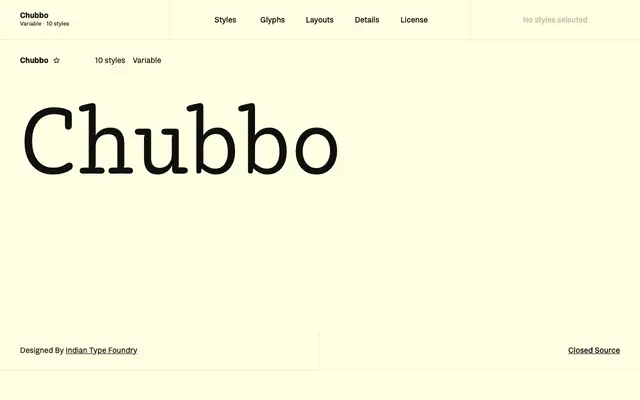
Chubbo
A rounded slab serif from Indian Type Foundry with five weights and genuinely redrawn cursive italics, available as static and variable fonts.
Chubbo's slab serifs end in rounded terminals across all five weights, lending the family a soft and approachable quality at poster and headline sizes. Its italics are a distinct contribution from type designer Rafał Buchner: rather than sloped versions of the upright forms, they are redrawn in a more cursive style that retains the feel of a pen stroke. OpenType alternates provide single-storey forms for the 'g' and 'y', and open-loop descender variants for the italic cuts.
The foundry classifies Chubbo as Display; it is a slab serif with rounded terminals throughout, giving it a soft, expressive character suited to large-size settings.